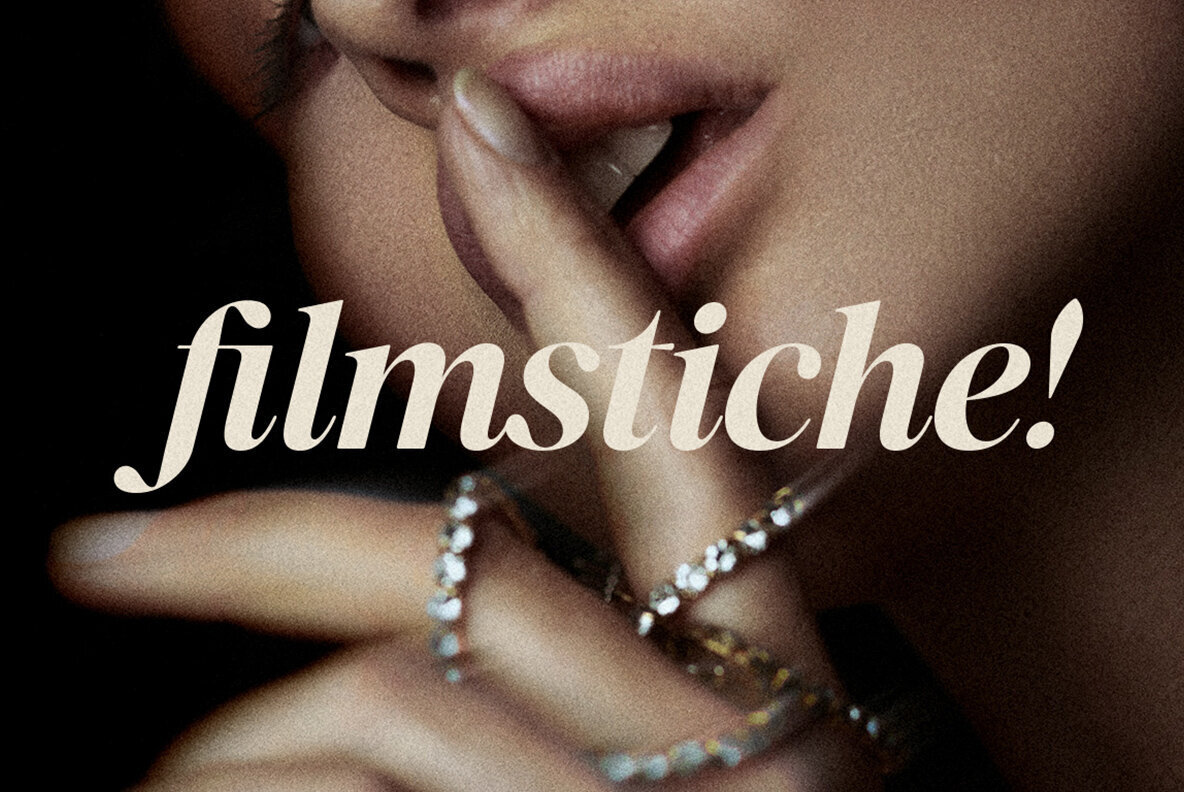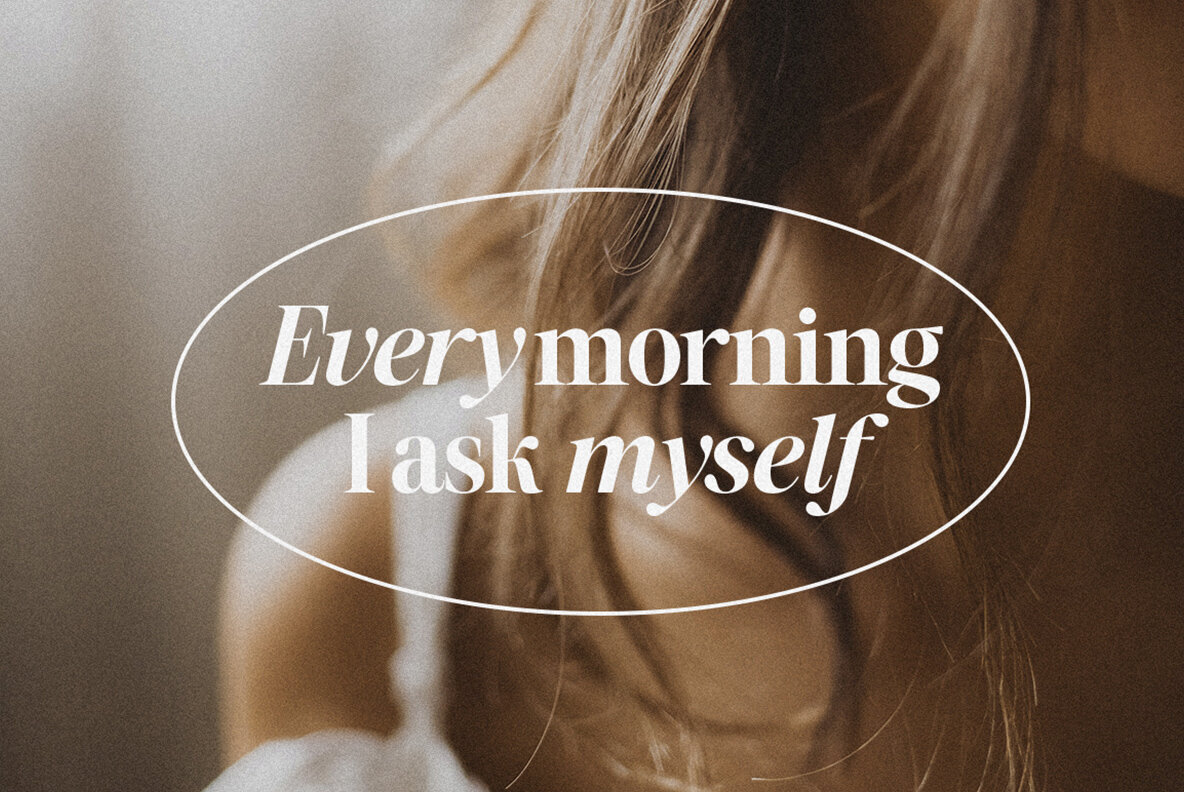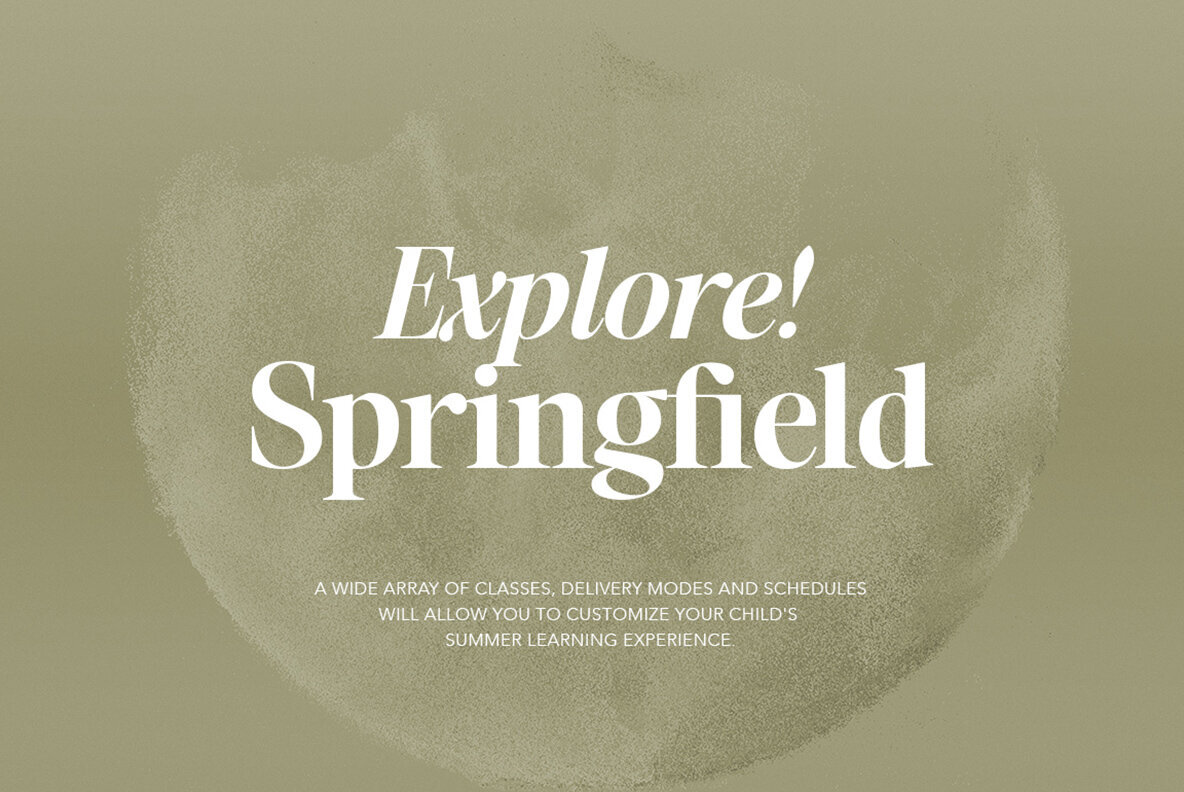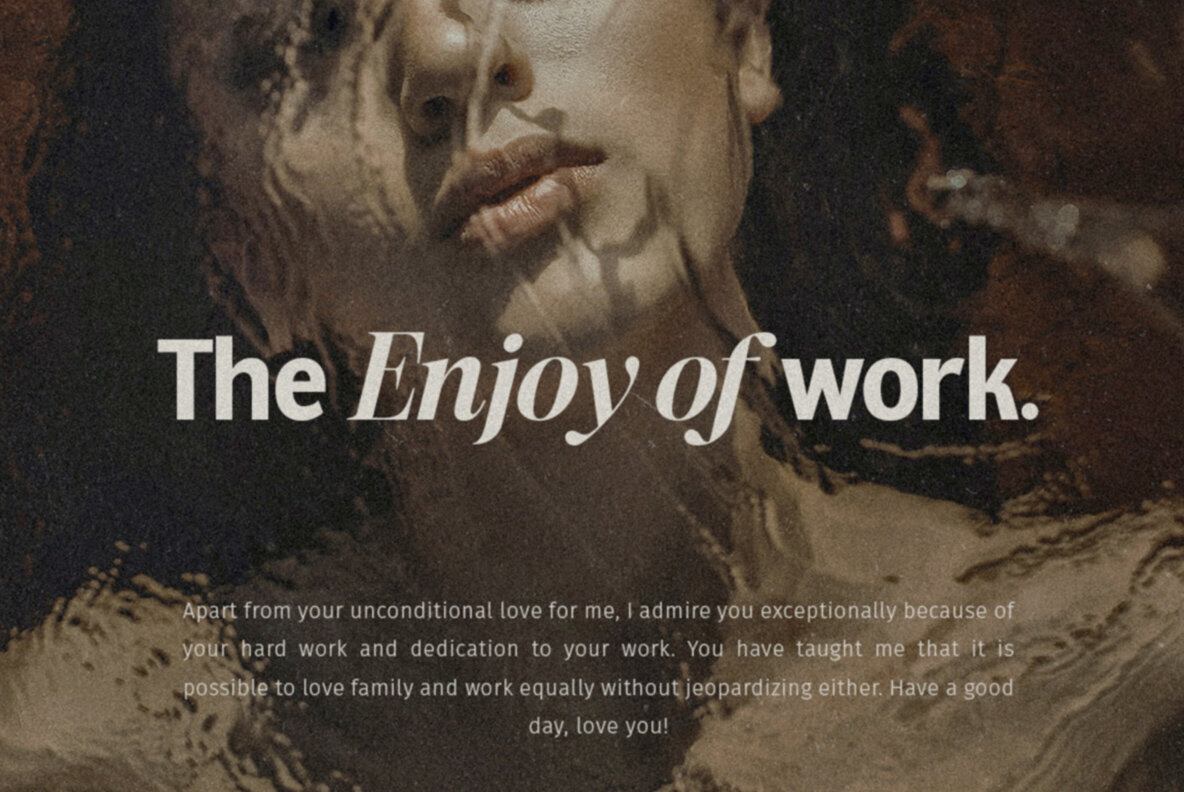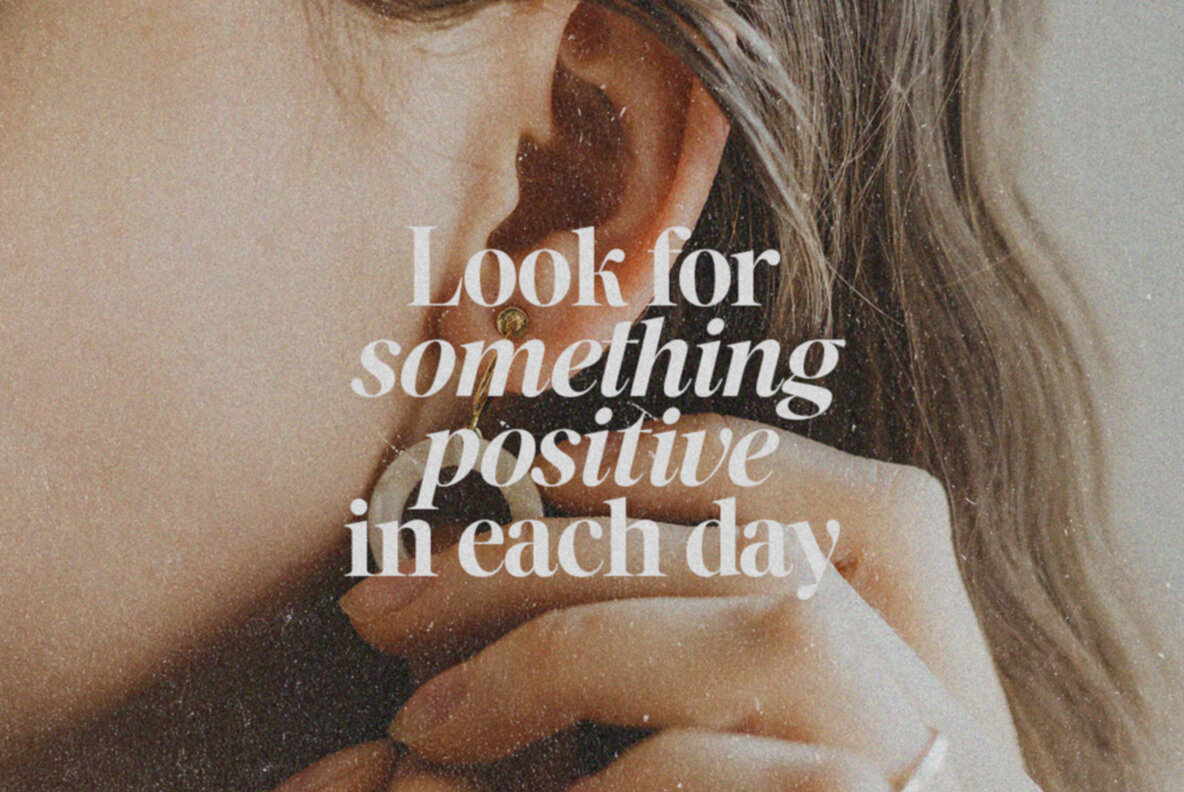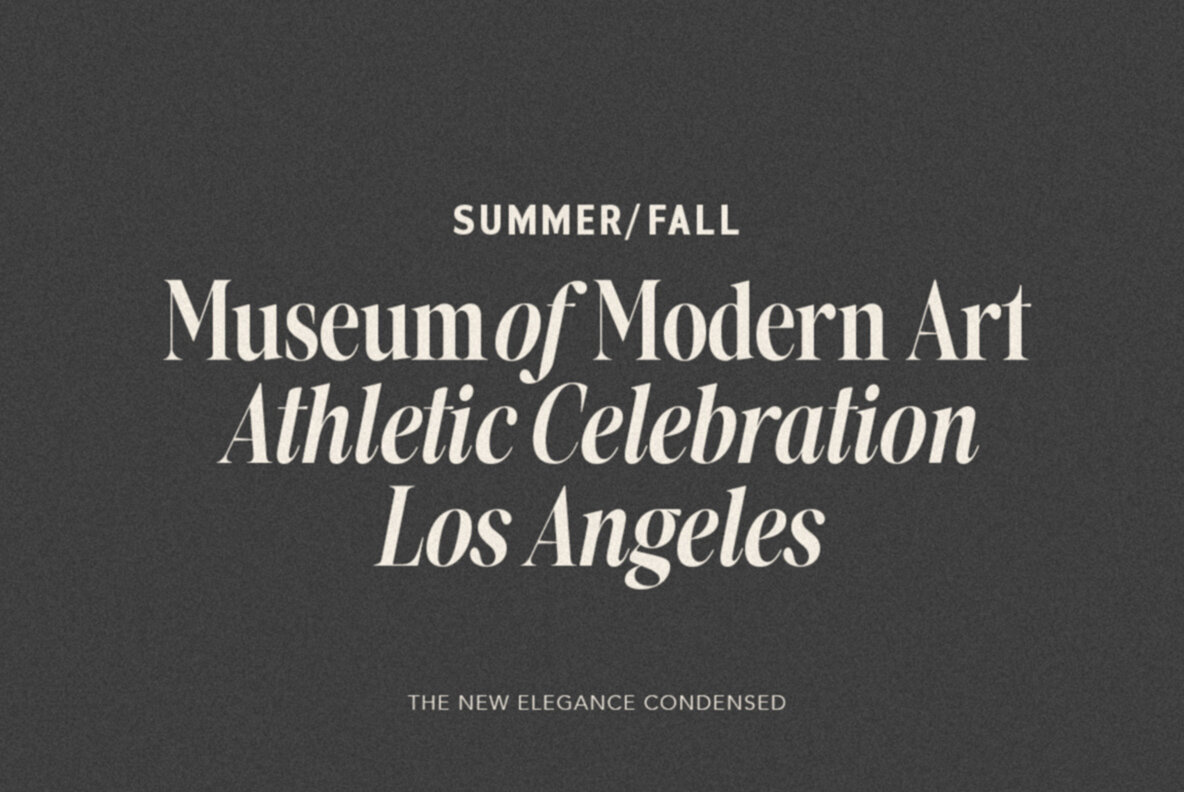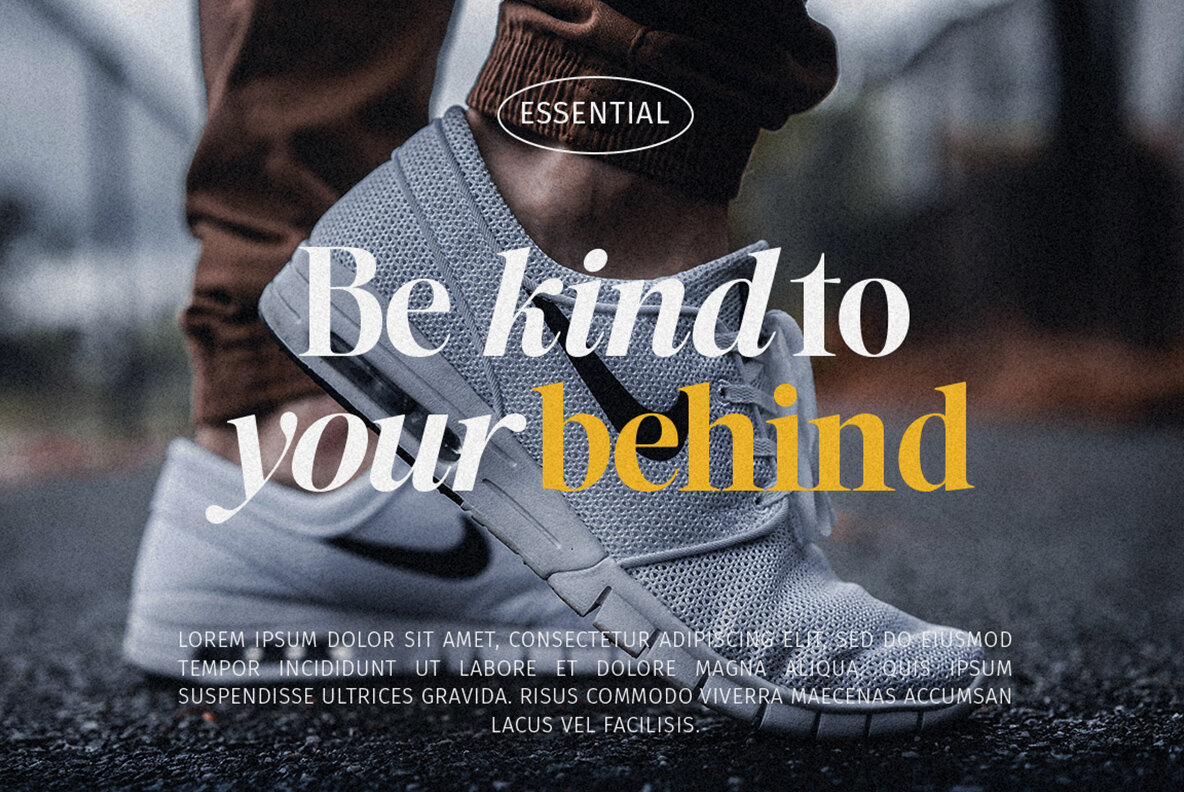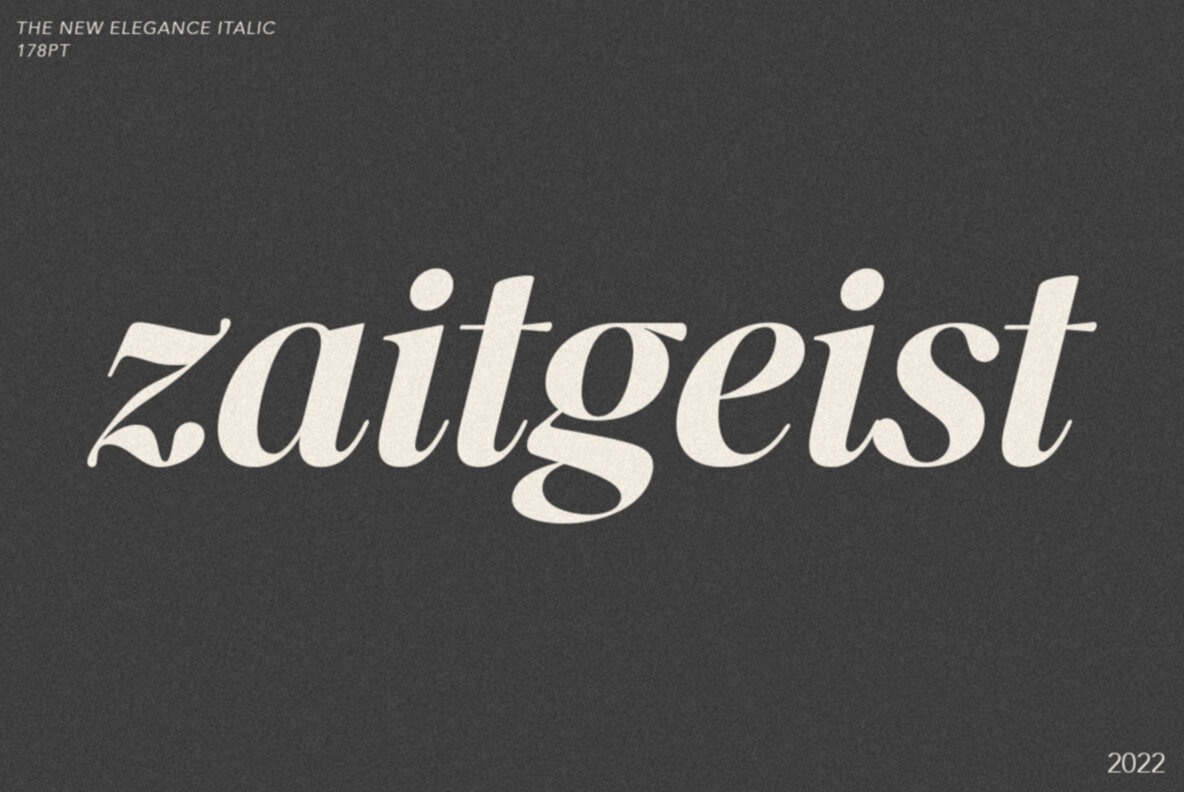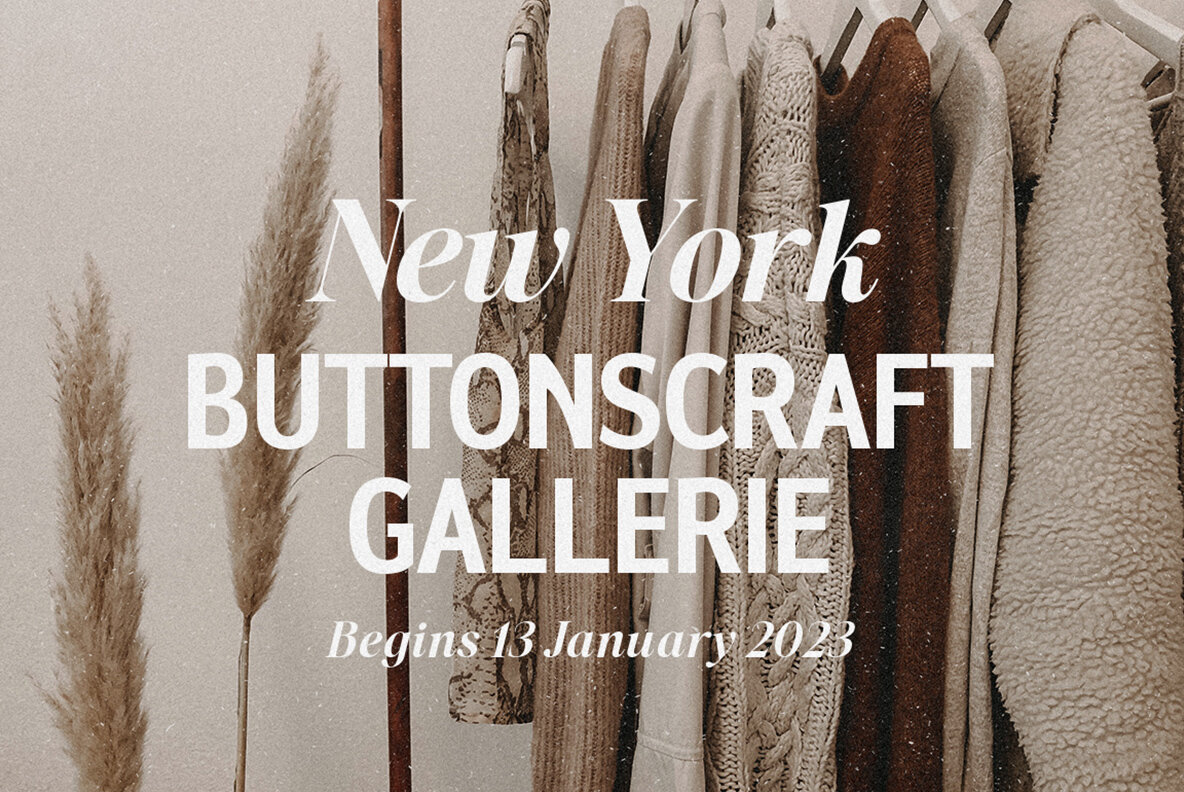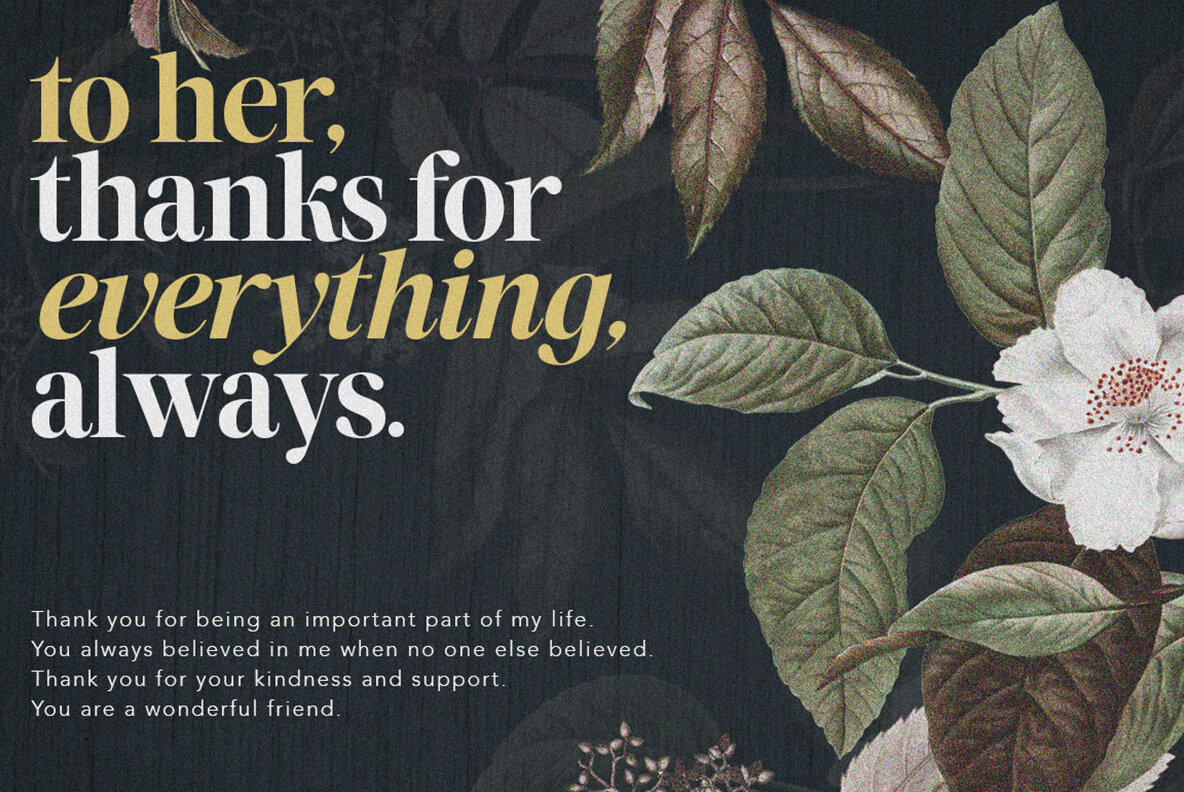
The New Elegance Family Font
The New Elegance is a new editorial serif with all clean and soft lines, tight curves, and a trendy elegant look! The New Elegance has two versions of the font, namely serif & Sans Serif which are equipped with an italic version style, very suitable for your design needs such as very suitable for creating nostalgic designs but still clean and elegant such as headlines, magazines, logos, packaging, editorial, and so on. much more.